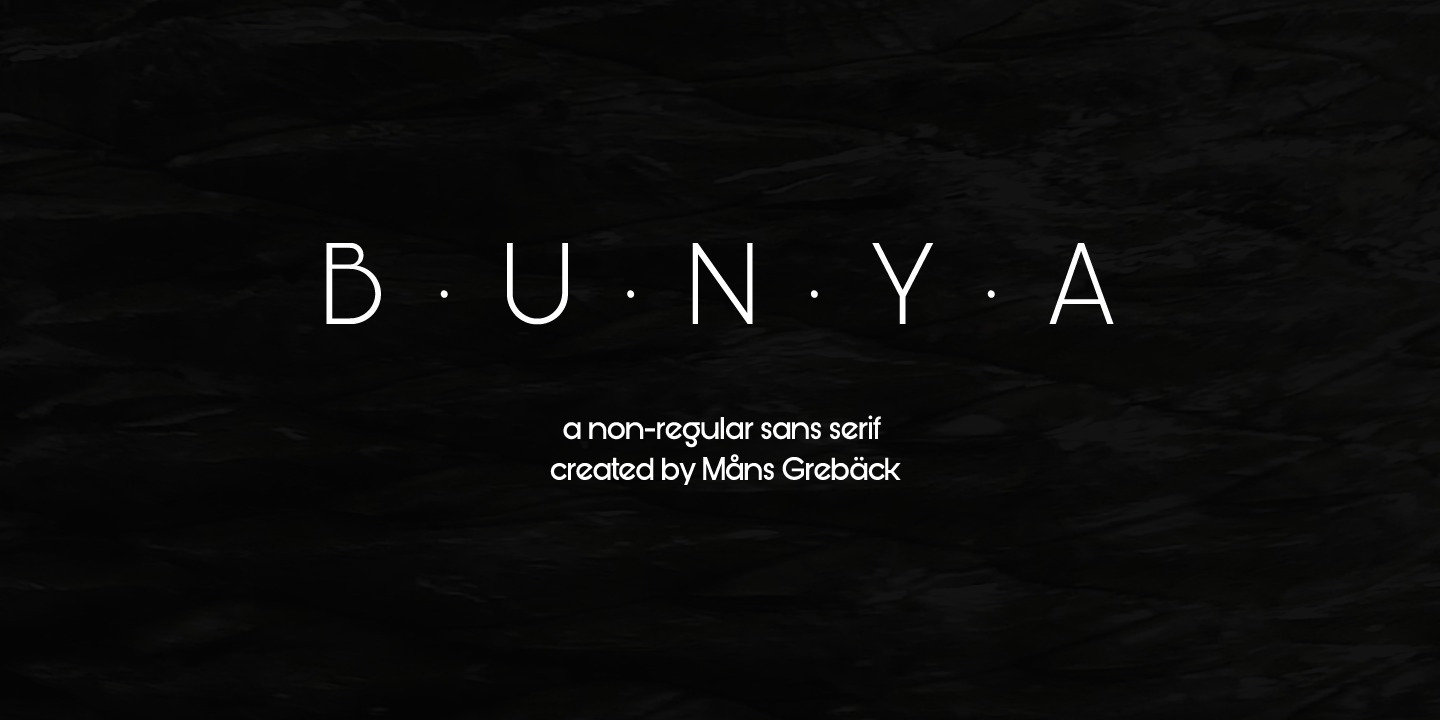
Bunya Complete Family Font
This comprehensive font system is perfect for extensive corporate identity programs, complex publishing projects, multi-platform digital design, large-scale branding initiatives, professional documentation systems, enterprise web development, systematic signage programs, and comprehensive communication strategies.
What makes this font exciting is its remarkable breadth and systematic design approach that provides designers with a complete typographic ecosystem capable of handling any communication challenge. The carefully coordinated subfamilies work in perfect harmony while offering distinct personalities for different applications, creating unlimited possibilities for sophisticated brand storytelling and hierarchical organization across all media formats and business requirements.
The Bunya Complete Family Font includes multiple subfamilies with various weights, widths, and styles, ranging from display-optimized versions to text-focused variants, along with condensed, extended, and specialty variations that provide unparalleled design flexibility for enterprise-level brand systems.
The exceptional versatility of Bunya Complete Family Font shines through its systematic methodology that addresses every conceivable typographic need within a unified design philosophy. Each subfamily has been precisely engineered for specific applications, from micro-typography for mobile interfaces to monumental environmental graphics, ensuring optimal performance and visual coherence. This comprehensive approach makes it particularly valuable for complex organizations, international media companies, global brands, and design consultancies requiring typography that maintains brand integrity across multiple markets, languages, and cultural contexts.
Professional designers will appreciate this font family's ability to solve virtually any typographic challenge while ensuring visual consistency and brand recognition. From comprehensive annual reports to complete website redesigns, from packaging systems to wayfinding programs, Bunya Complete Family Font provides the depth and flexibility necessary for sophisticated design solutions. The family's extensive OpenType features, multilingual support, and technical specifications ensure professional-grade performance across all platforms, making it an indispensable resource for design teams working on large-scale projects requiring typographic excellence, systematic brand development, and the ability to maintain consistent brand voice across every possible communication scenario and global market application.